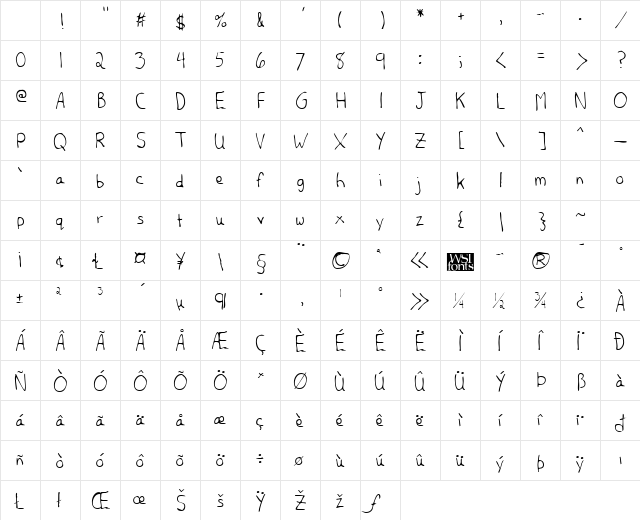
OpalsHand Regular
Design Context for OpalsHand
OpalsHand flows with the natural rhythm of handwritten lettering, making it ideal for designs that call for warmth and personal expression.
Font Pairing: Combine OpalsHand with a simple geometric sans for maximum contrast - the tension between flowing curves and clean structure is a classic typographic pairing.
Pro Tip: Use OpalsHand for short runs of text - names, titles, or taglines. Extended body copy in script faces tires the eye quickly.